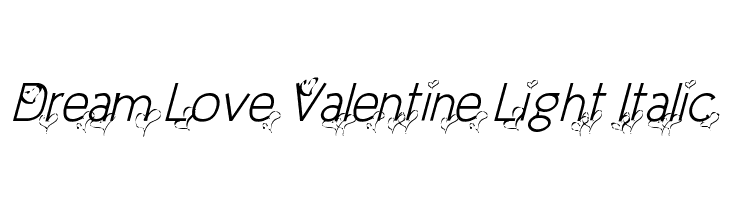
A geometric, digital-inspired font with angular segments and a futuristic look.
A whimsical font with heart-shaped elements, perfect for romantic designs.
A bold, dynamic font with a futuristic halftone effect and sporty aesthetic.
A whimsical and decorative font with intricate curls and loops.
A pixelated, monospaced font with a retro digital aesthetic.
A decorative font featuring abstract, artistic characters with a playful pop art style.
A sleek, extra-condensed thin italic font with a modern and elegant style.
A classic serif font with elegant strokes and moderate contrast.
A bold, hand-drawn font with a playful and artistic style.